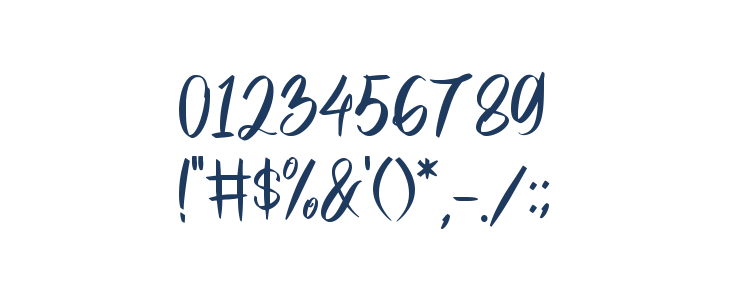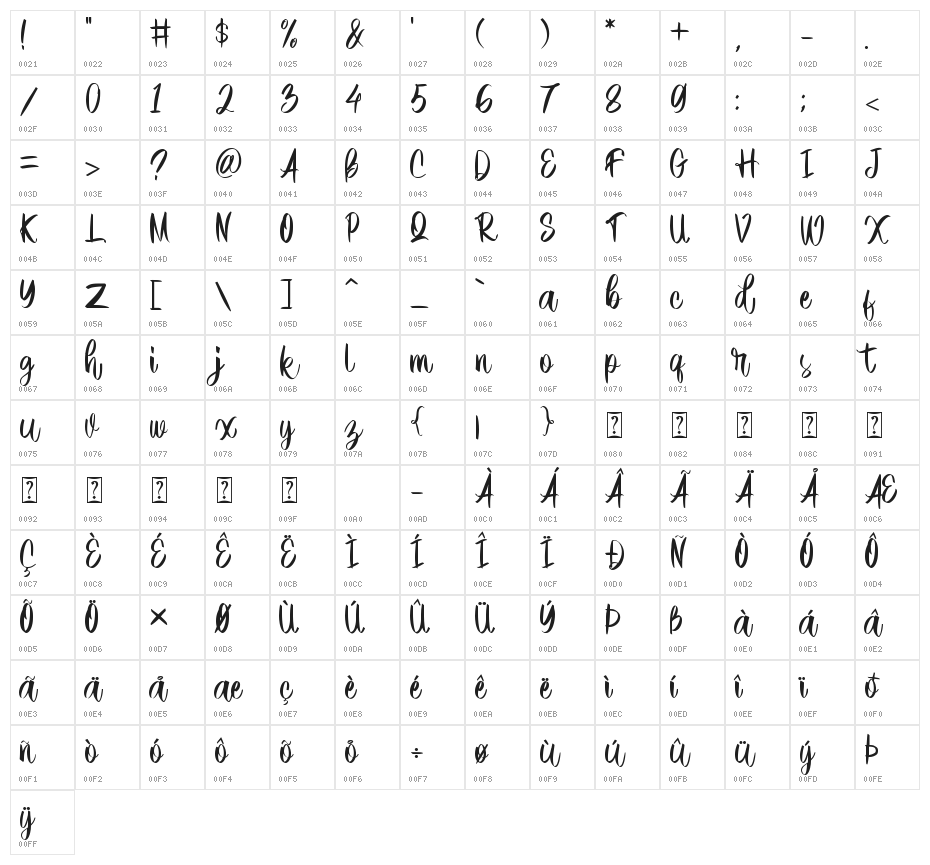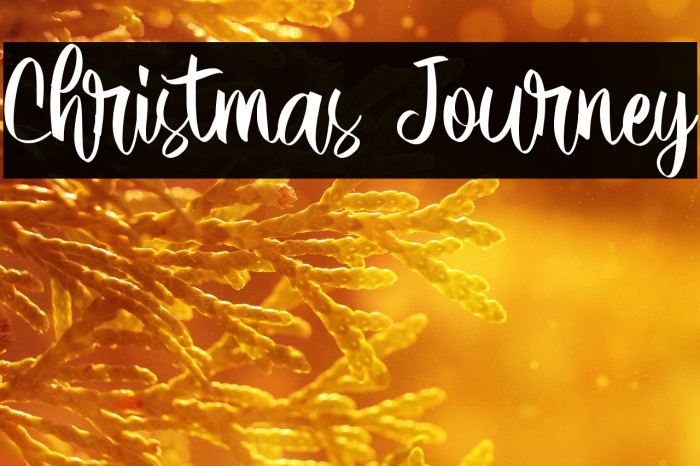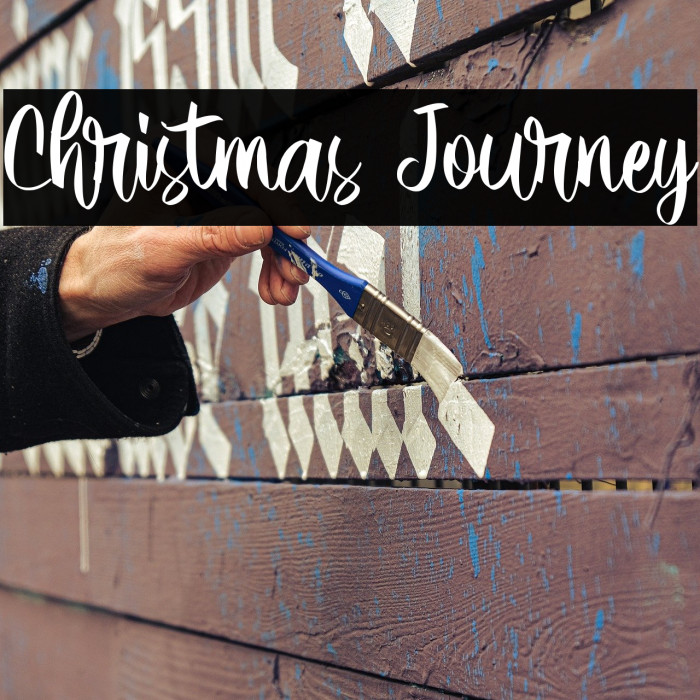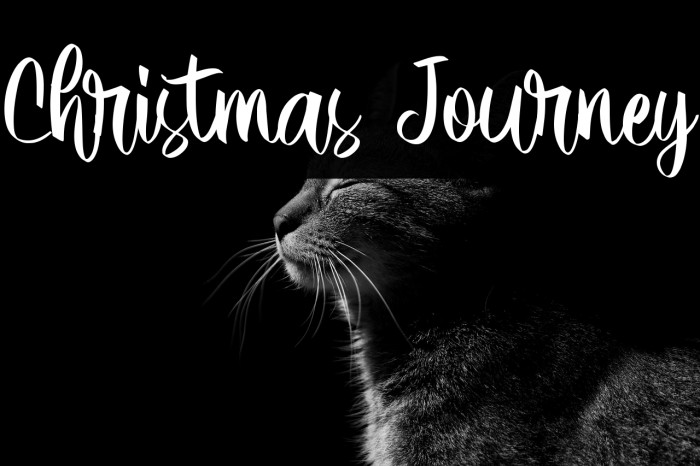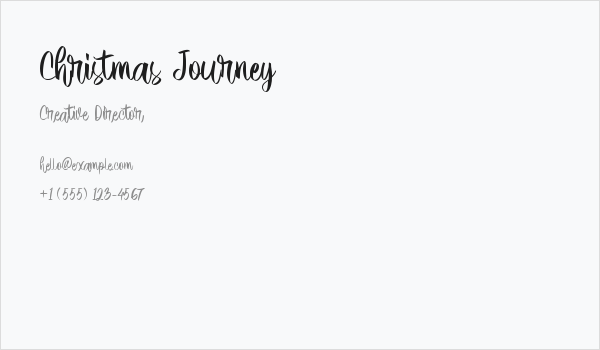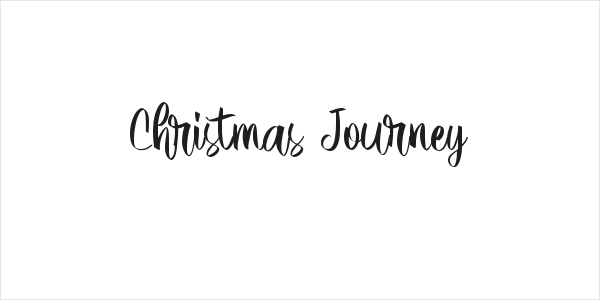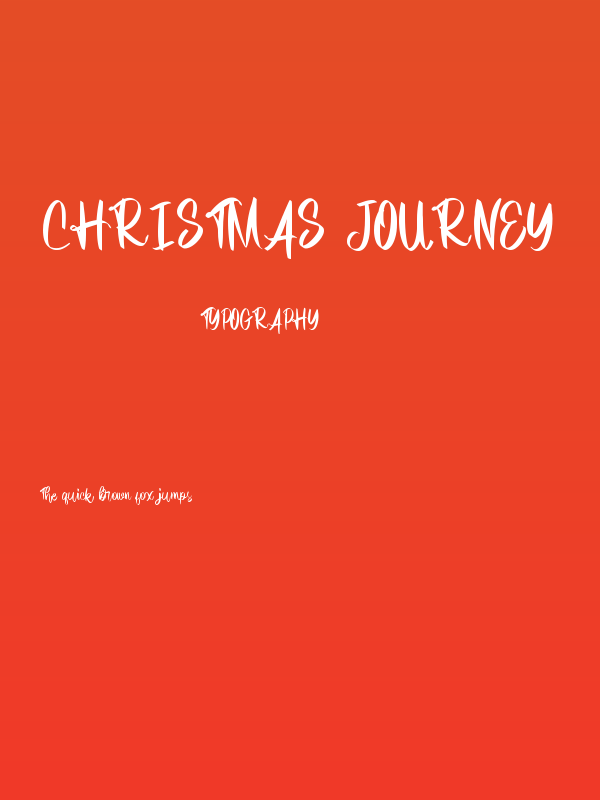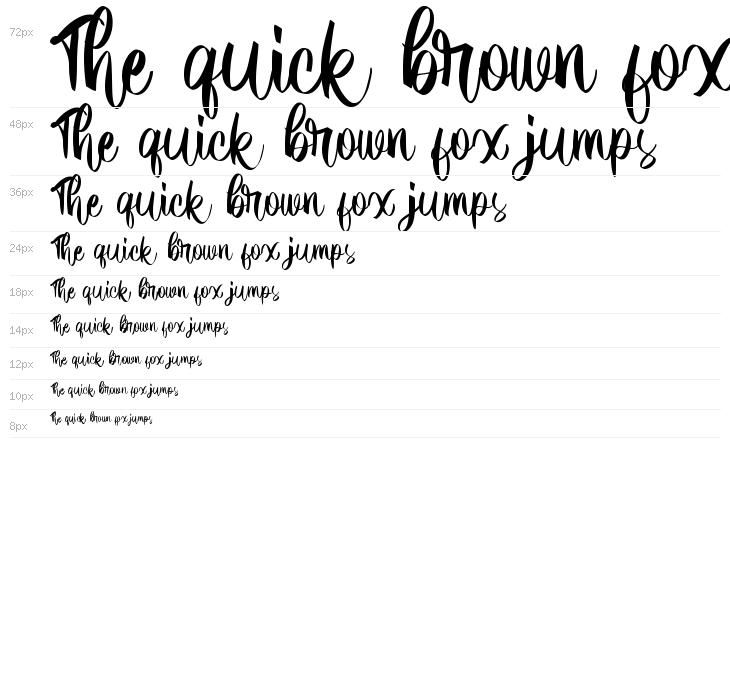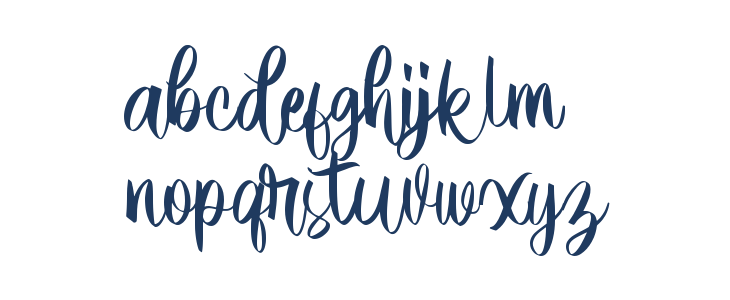
Christmas Journey Font
Christmas Journey Description
This font features a lively and expressive script style, characterized by its flowing, cursive letterforms. The uppercase letters are bold and dynamic, with a playful flair that adds a sense of movement and energy. The lowercase letters maintain a consistent style, with smooth, rounded curves and elegant loops that create a harmonious flow. The numerals are equally stylish, with a slight slant that complements the overall script aesthetic. Special characters are thoughtfully designed to match the font's whimsical nature. This font exudes a festive and joyful vibe, making it ideal for celebratory and creative projects.
Use CaseHeadlines, Logos, Invitations
Proposed ProjectsIdeal for holiday cards, festive invitations, branding, and creative design projects.